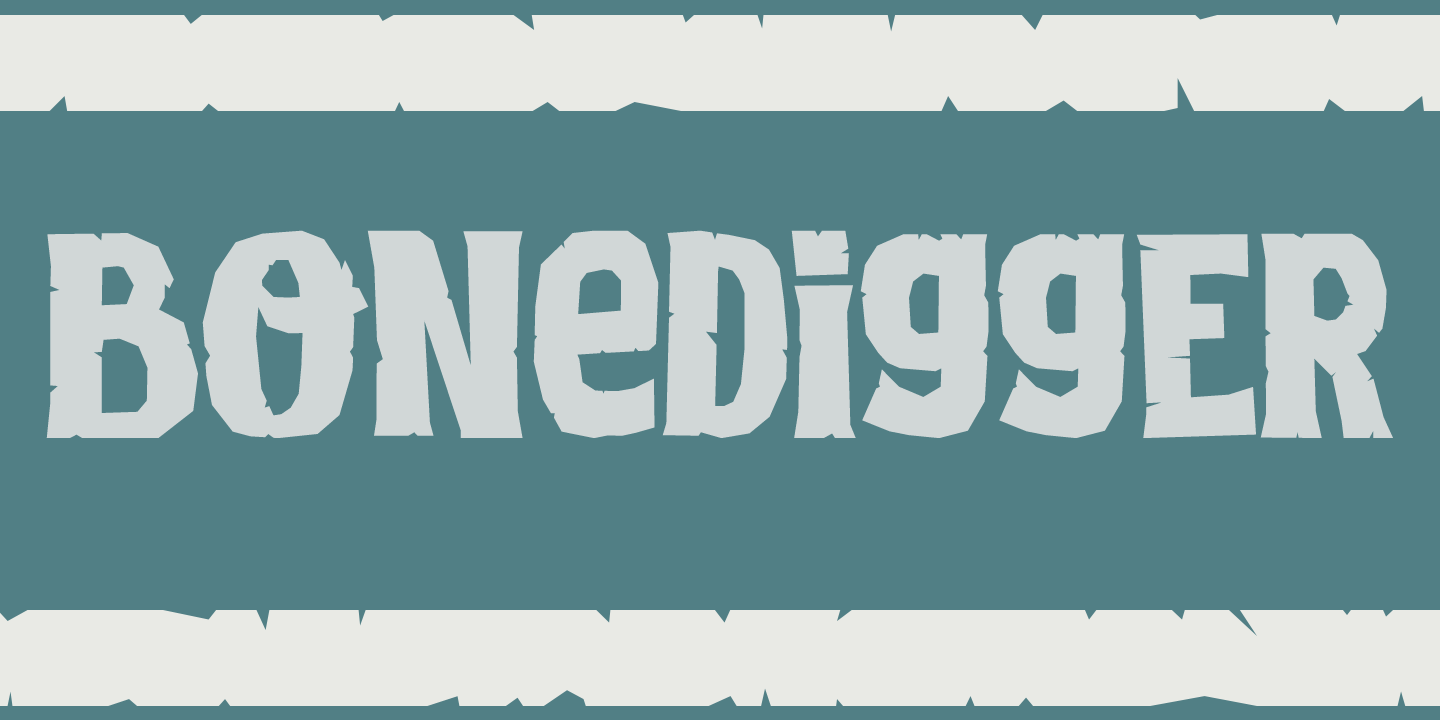
The Bonedigger Font is an excellent choice for designs that aim for a raw, gritty, and distinctly horror or heavy metal-inspired aesthetic. Imagine it dripping across the cover of a chilling horror novel, adding a sinister touch to a gothic-themed video game title, or bringing a brutal atmosphere to a death metal album cover. It's also perfectly suited for Halloween-themed events, dark fantasy art, edgy streetwear branding, and any project where you want to convey a sense of dread, decay, or an uncompromising, visceral impact. Its often jagged, fragmented forms, and aggressive presence make it ideal for conveying ferocity and an unsettling presence.
What makes the Bonedigger Font so exciting is its ability to instantly infuse a design with a feeling of foreboding and a sense of something ancient or monstrous. It frequently features elements that evoke classic horror imagery – perhaps mimicking bones, sharp teeth, or ragged edges – making it feel both unique and perfectly themed. This font has a powerful and disturbing personality that can instantly elevate your design, making it feel both intense and artistically grim. It’s designed to capture attention with its eerie charm, ensuring your message is not just seen, but felt with a profound sense of unease.
The Bonedigger Font family typically might focus on a few impactful weights to best convey its strong character, possibly including stylistic alternates or unique ligatures that enhance its horror-themed appeal. While it might not always have an extensive range of weights, its strength lies in its unique visual style and inherent expressiveness. These variations empower designers to create a truly unsettling and memorable display, ensuring the Bonedigger Font Free Download can adapt to a wide array of projects while maintaining its signature, haunting charm.